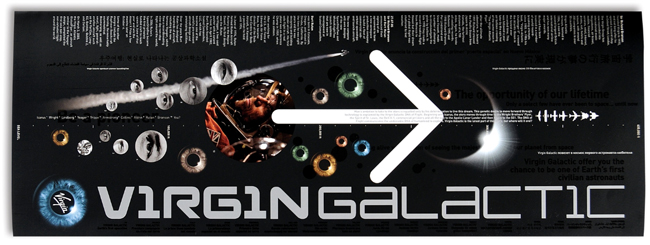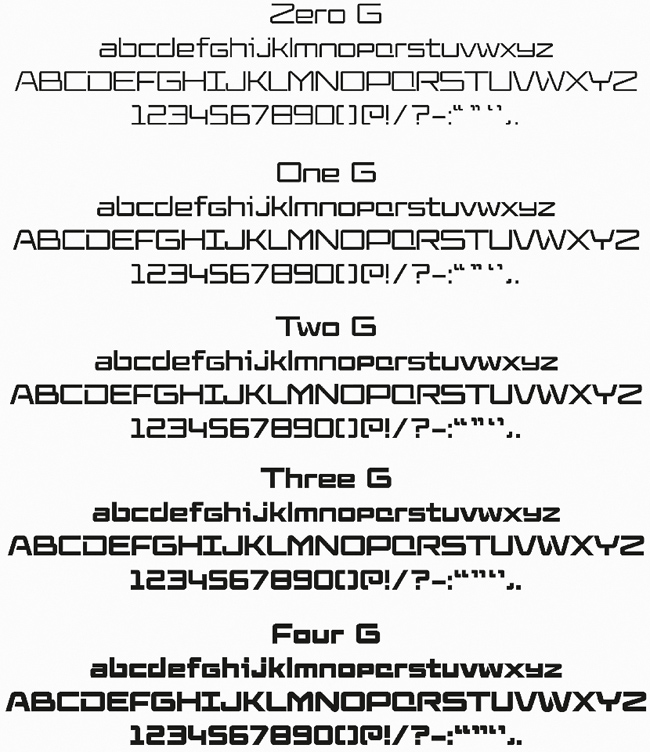
Virgin Galactic Puts Its Spacey Typeface Up For Sale
T-Minus 3… 2… 1…
Dalton Maag, a London font and logo design studio, has developed a new typeface sure to knock the space nerds right off their telescopes. It's got flat, square characters and a kind of retro-futuristic style designed to, as Dalton Maag says, conjure up the "stars" and "the staples of the Science Fiction genre." Or real life: This stuff looks like it belongs in the livery of the Virgin Galactic.
Well, whaddya know? It was designed for precisely that. Elevon is based on the brand identity that Dalton Maag designed with GBH, a creative agency in the U.K., and Frenchie design star Philippe Starck, for Branson's commercial space venture back in 2006.
Here, Dalton Maag expanded the character set to create a full "Corporate Edition" complete with Latin, Greek, and Cyrillic glyph sets. According to Bruno Maag: "The Cyrillic and Greek scripts in particular have an alien beauty in their unfamiliar letterforms. Five weights of stroke thickness create subtle variations in light and dark that reflect the emerging and fading of the stars."
Cool, okay. We just can't think of many companies that'll find much use for this typeface. It has a lot of look. And the whole "resto designed to look like a spaceship" craze pretty much disappeared in the '90s (except in Karim Rashid's universe).
Then again, for those of us who don't have more money than god, this is probably the closest we'll ever come to sub-orbital space flight.